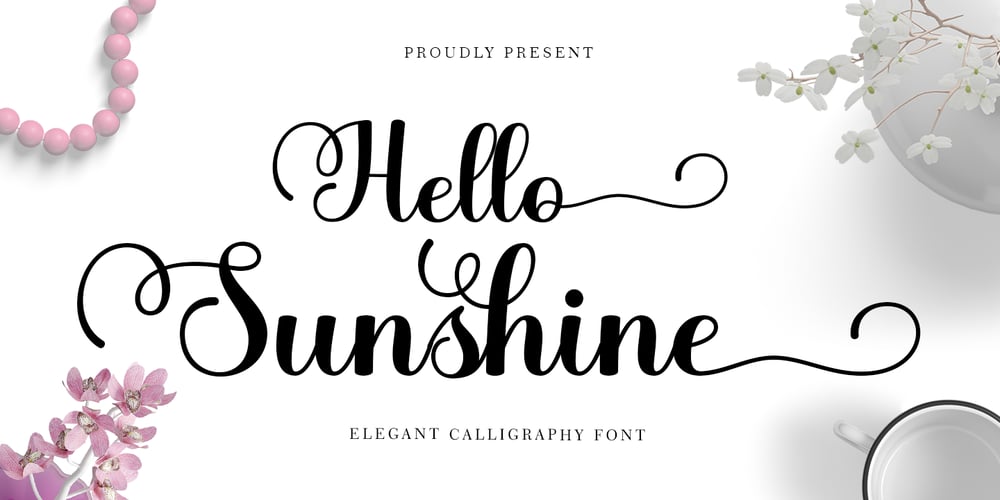
Hello Sunshine Font Family was designed by Romi Rahmadi and published by Romie Creative. Hello Sunshine contains 1 styles and family package options. Hello Sunshine – elegant Calligraphy font is a romantic and sweet calligraphy typeface with characters that dance along the baseline. It has a casual and yet elegant touch. It can be used for various purposes such as logos, wedding invitations, headings, t-shirts, letterhead, signage, lables, news, posters, badges etc.The fonts include OpenType features with stylistic alternates, ligatures and multiple language support.To enable the OpenType Stylistic alternates, you need a program that supports OpenType features such as Adobe Illustrator CS, Adobe Indesign & CorelDraw X6-X7, Microsoft Word 2010 or later versions